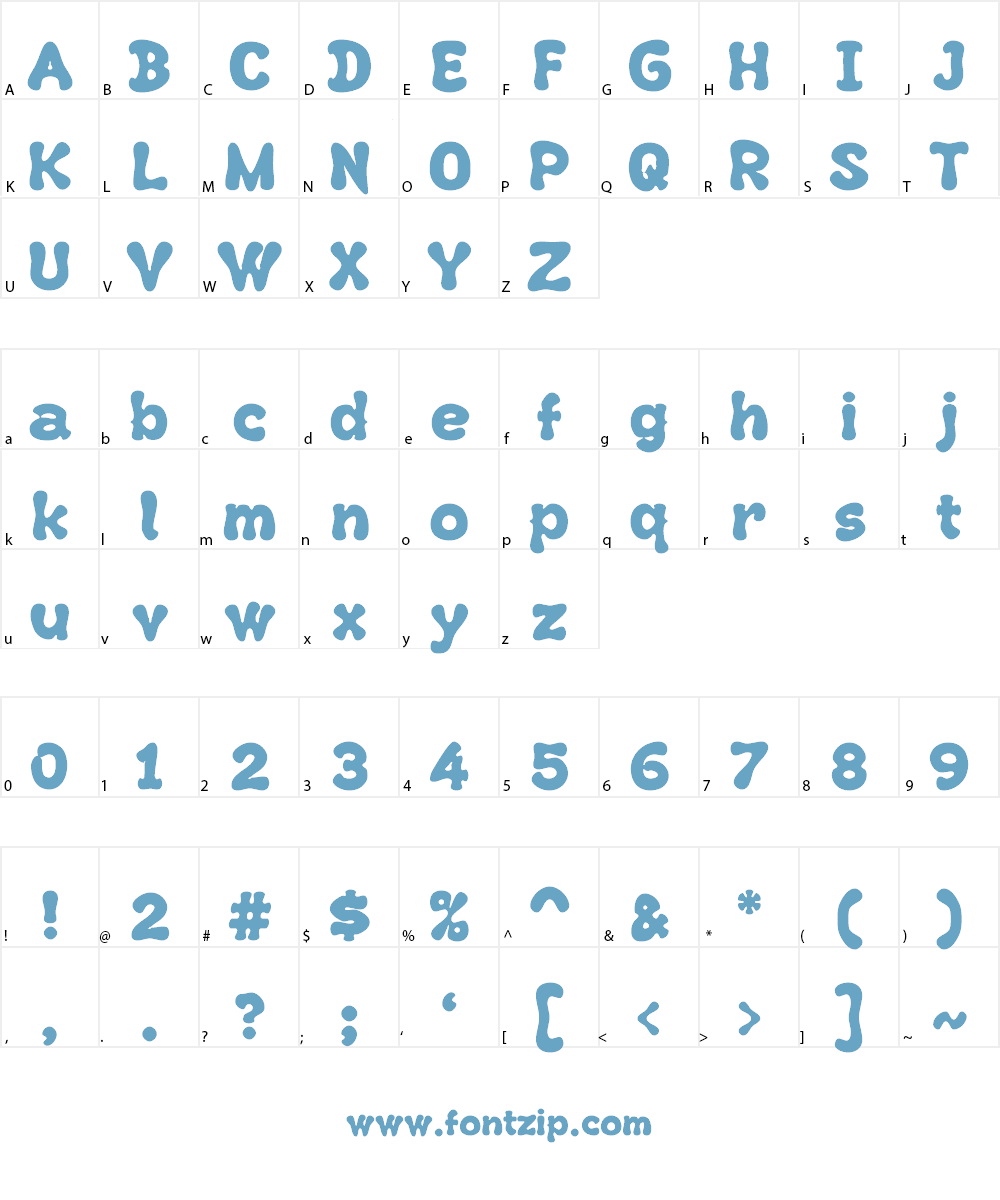
Kush is what happens when you let your fonts sit around watching cartoons and eating cake and ice-cream all day—When their vectors are freed from constraints and allowed to follow their bliss. Kush has filled its insides to just the other side of contentment and comes to you on a sugar high with a head full of Loony Tunes.
A fresh new decorative OpenType, display face from Our House Graphics with a plush organic feel, Kush has 370 glyphs, over two dozen standard and discretionary ligatures and a few surprises.